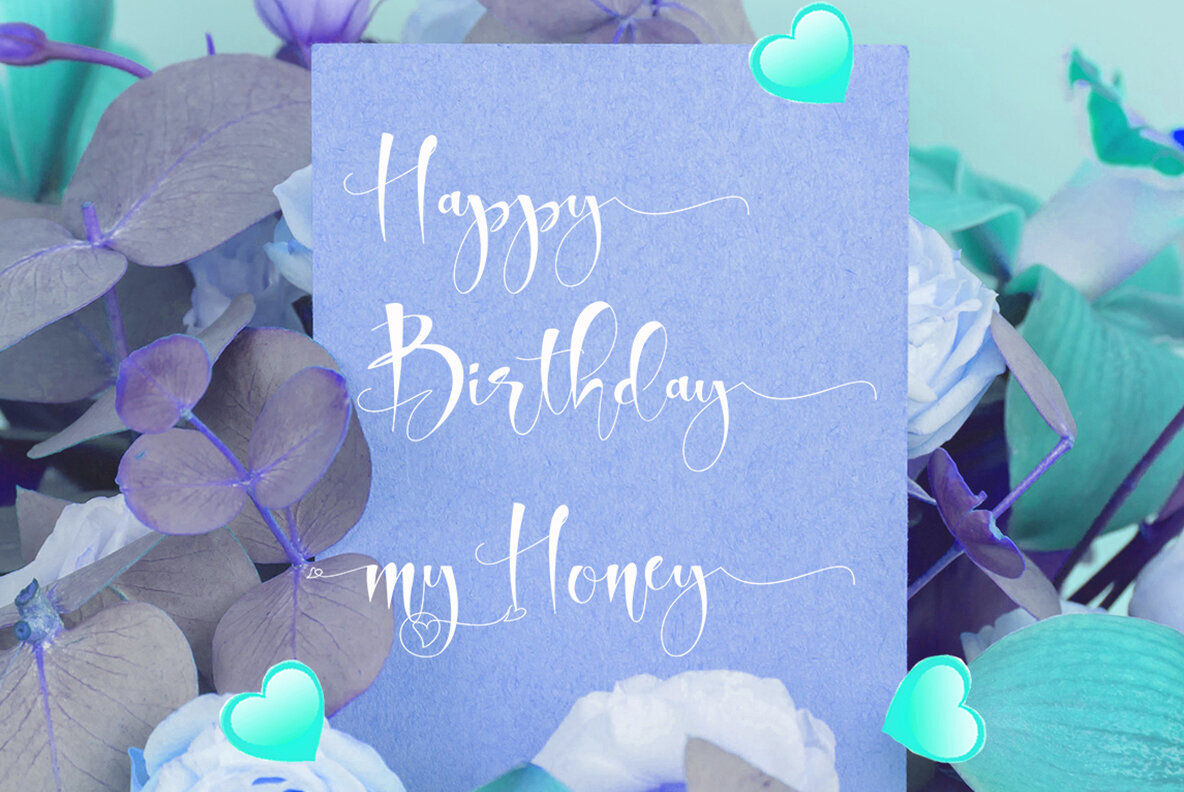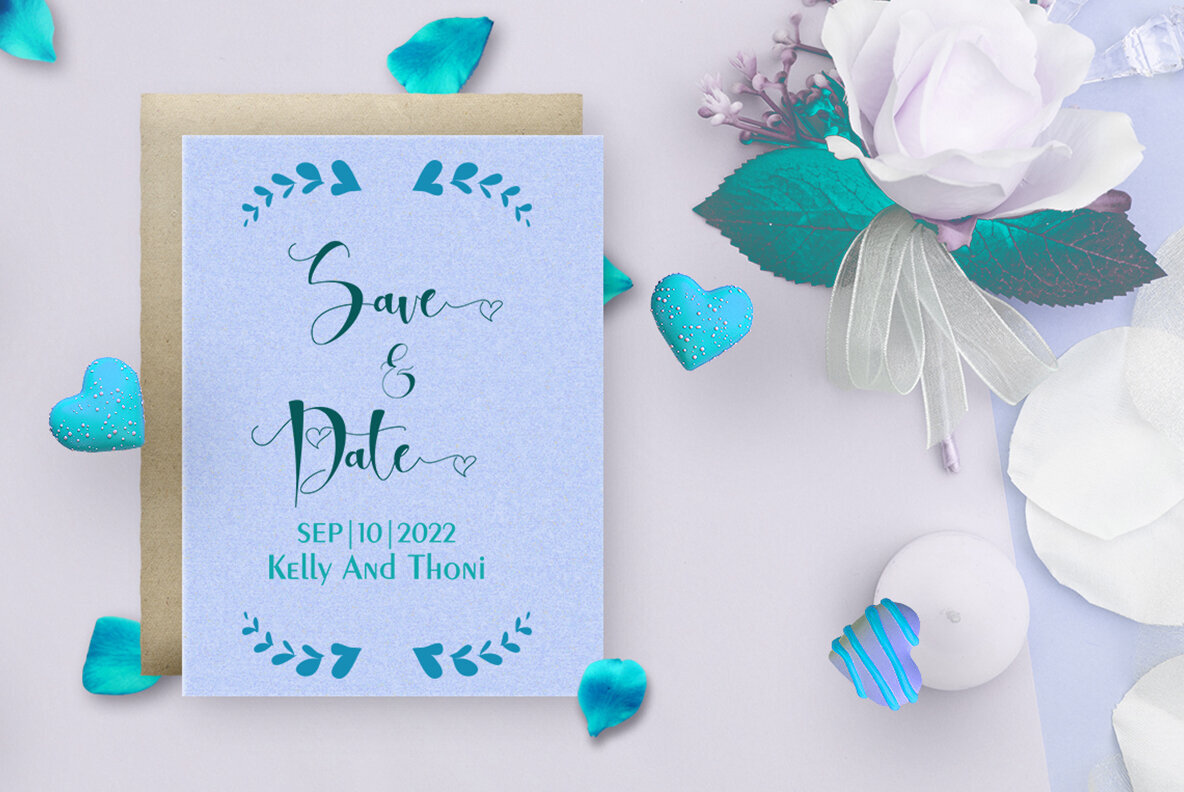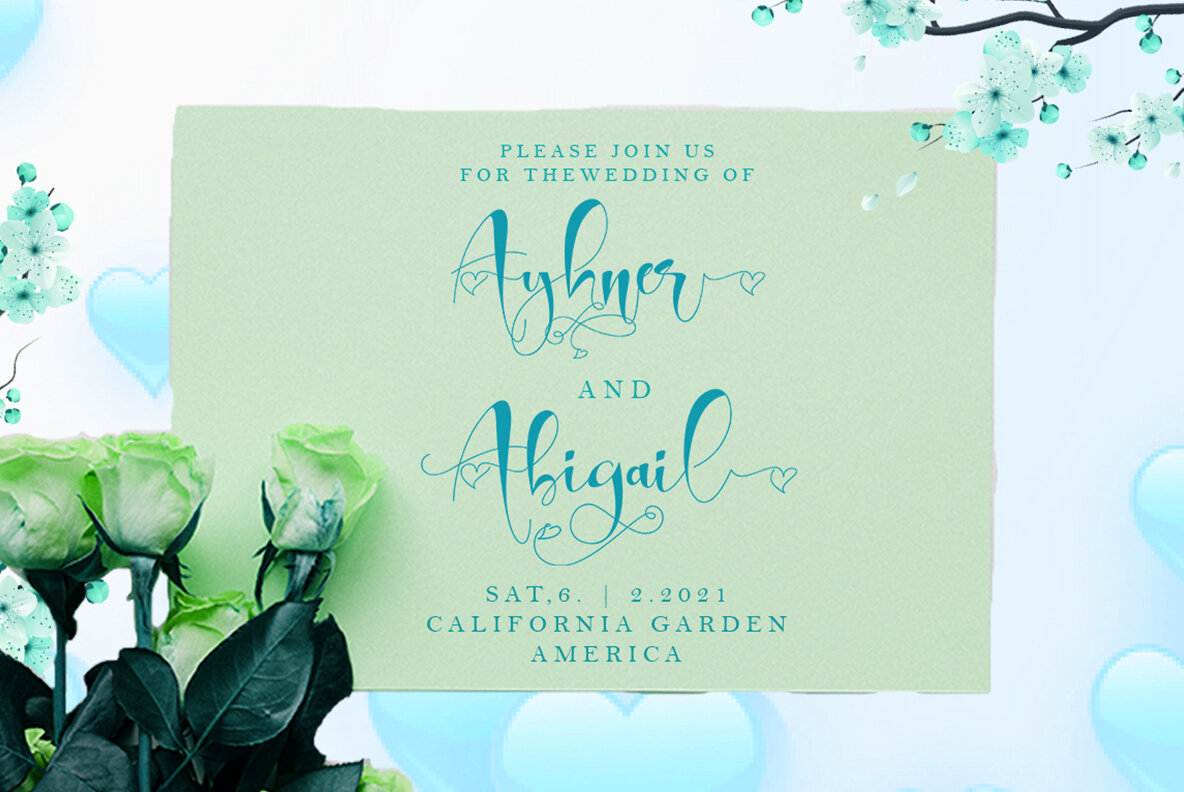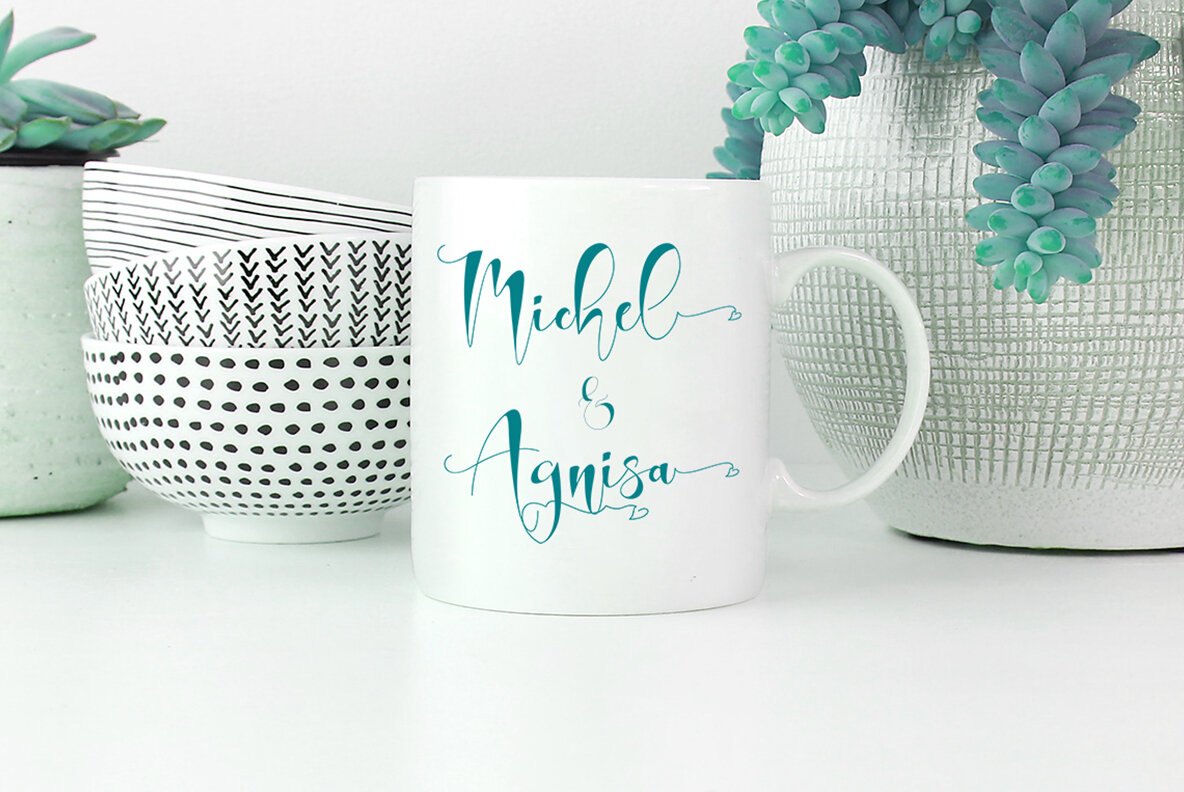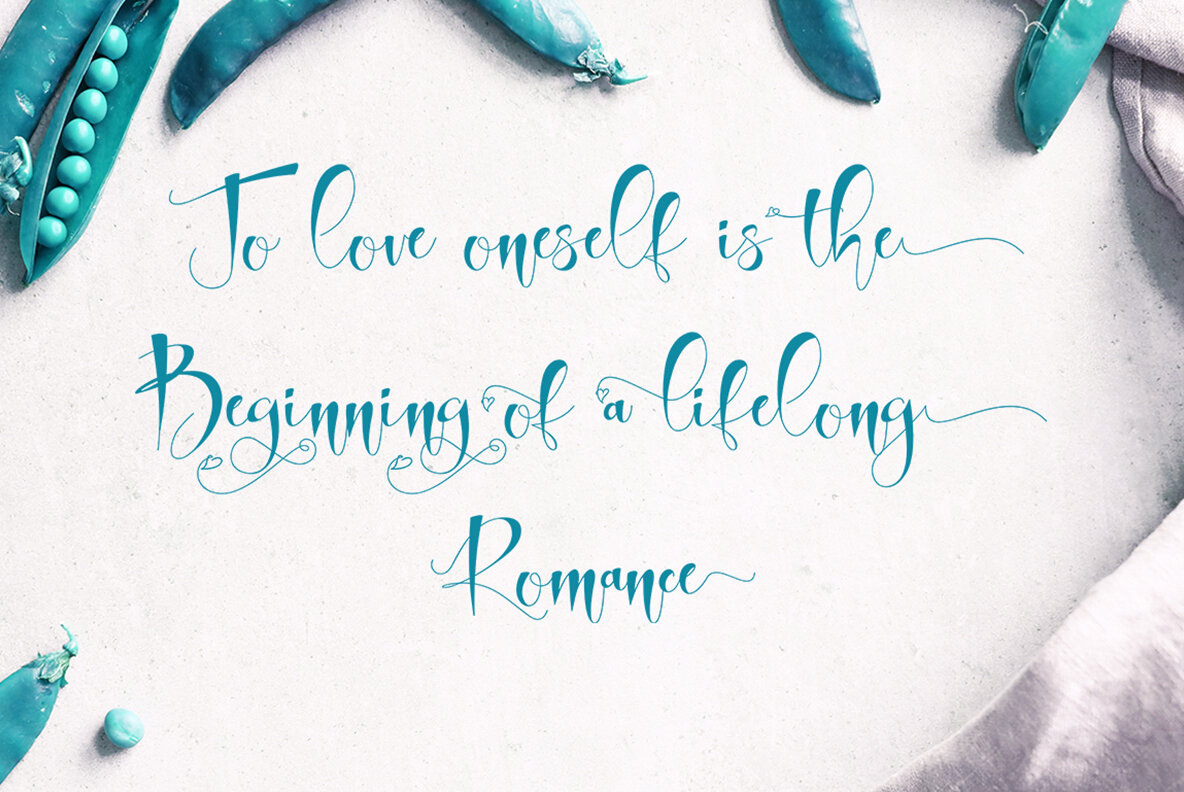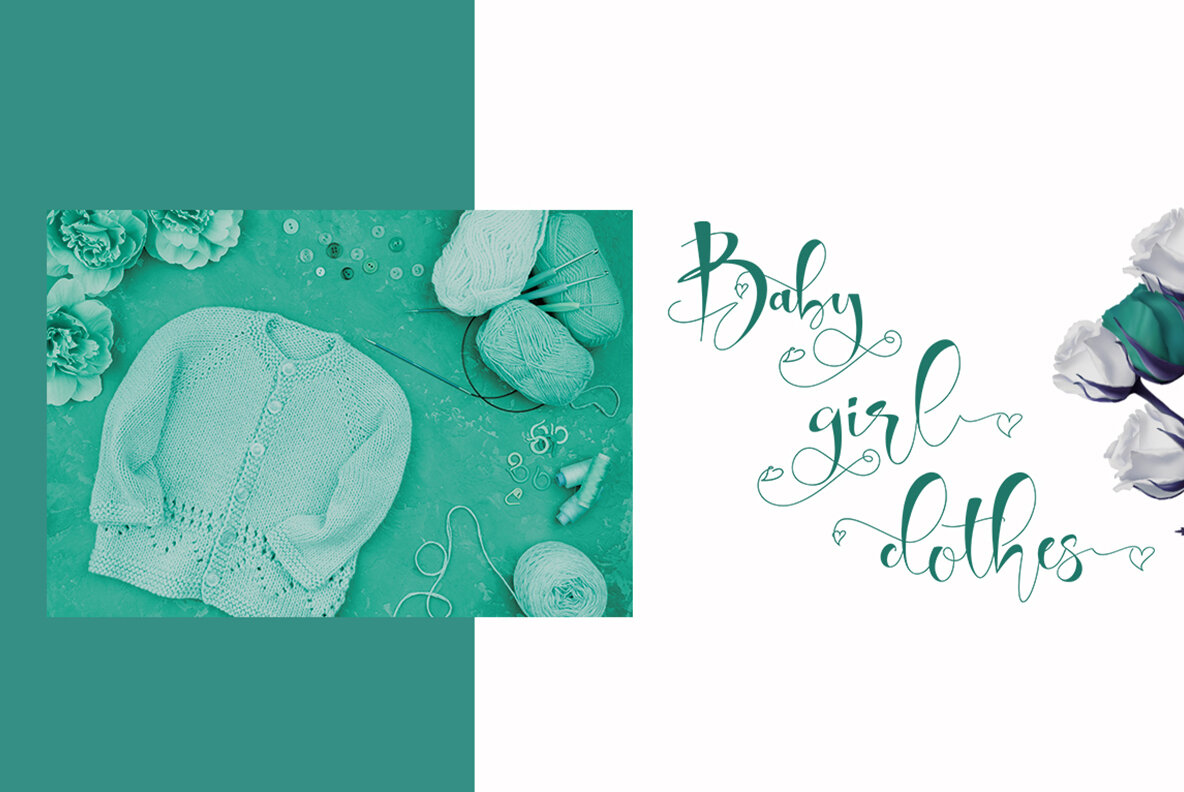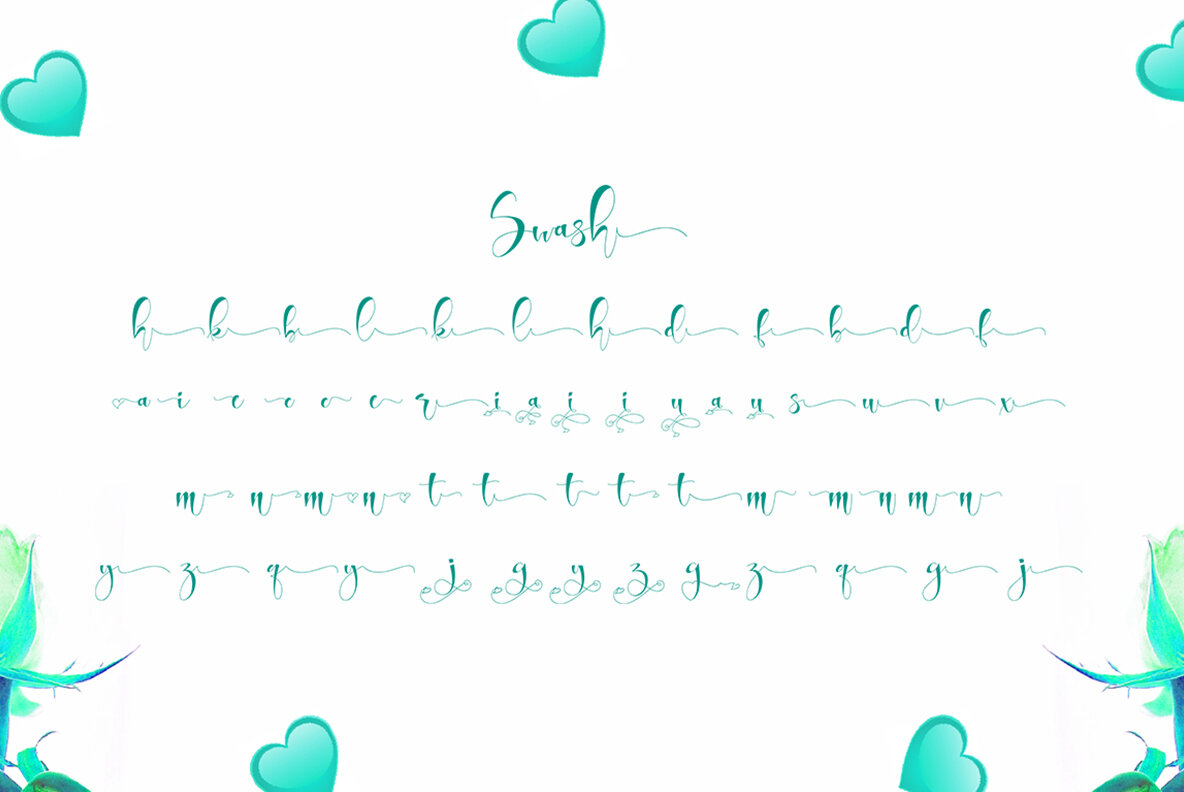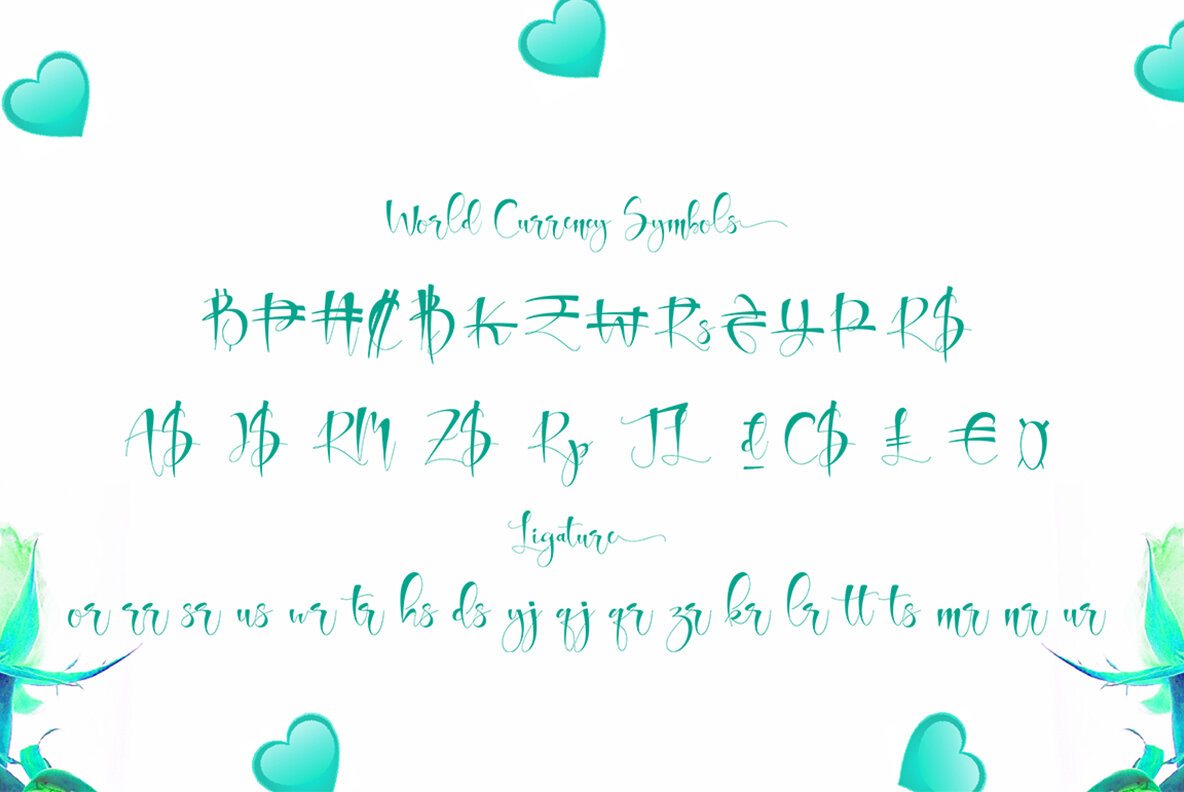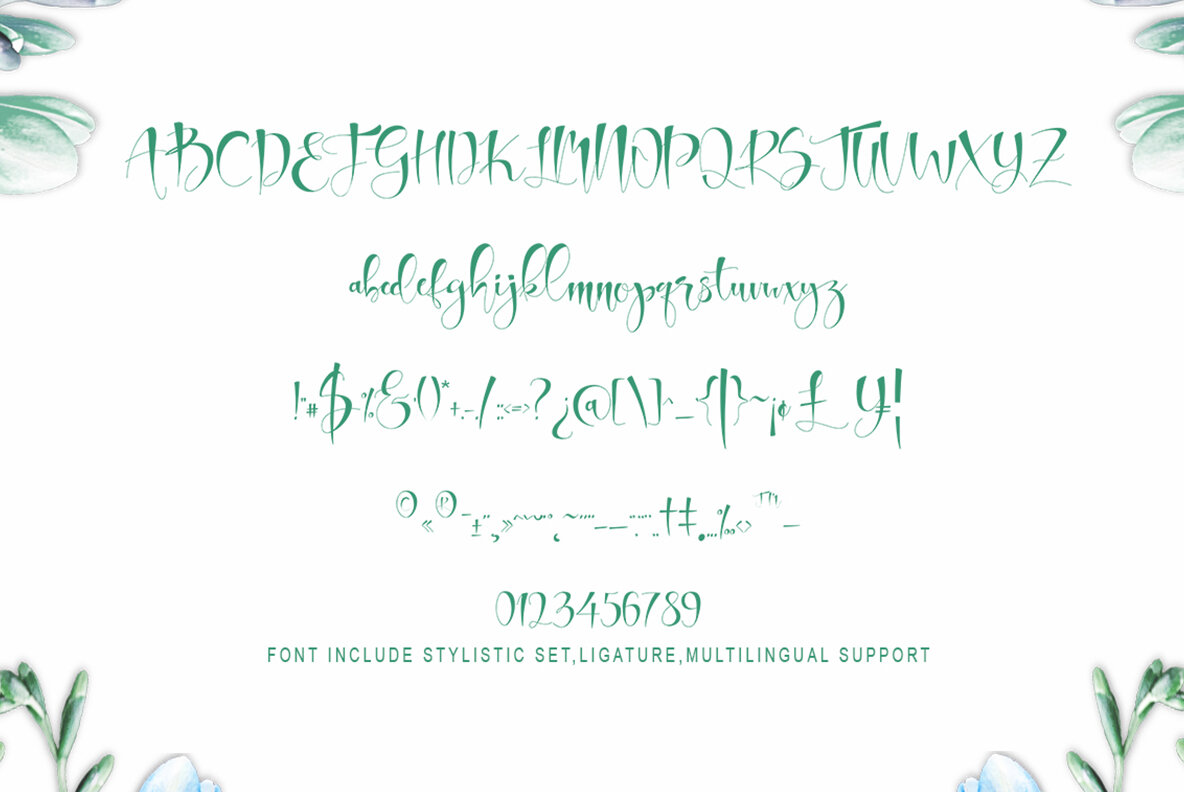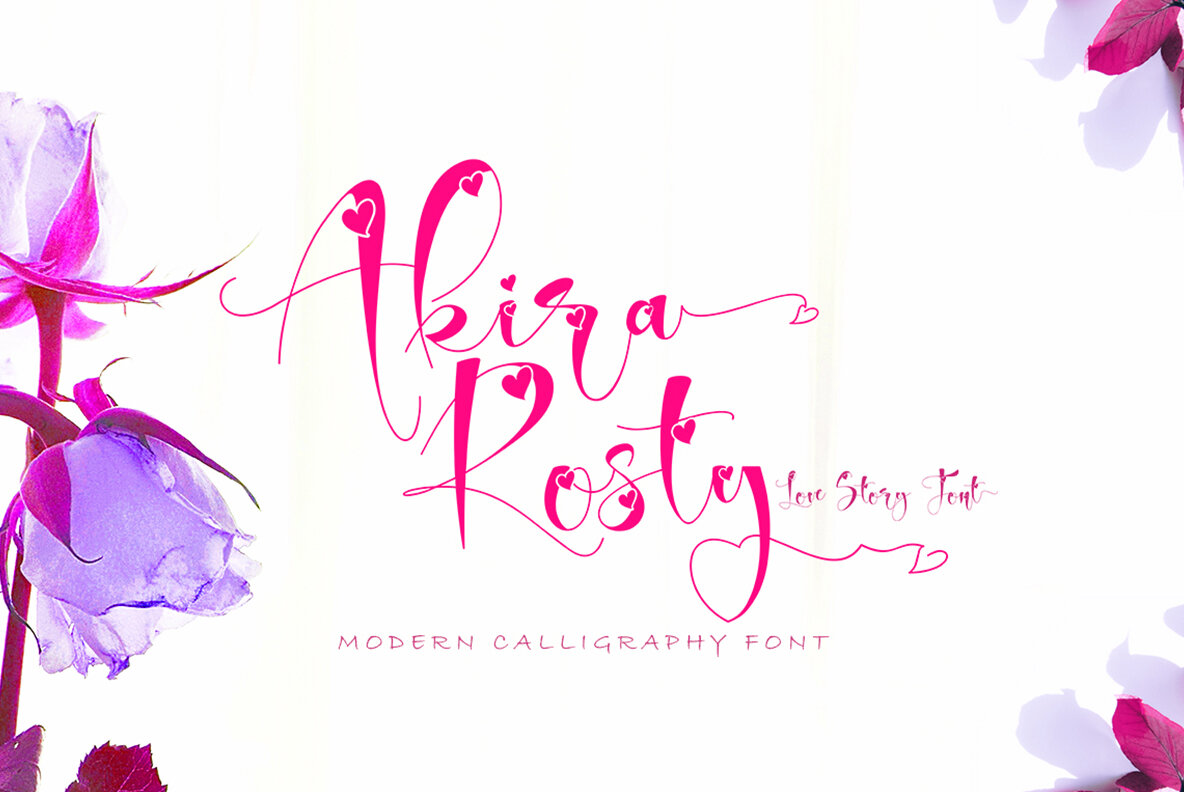
Akira Rosty Font
Akira Rosty is a distinctive handwriting font that combines modern aesthetics with a natural style, ensuring visual appeal. This versatile calligraphy font includes a modern Love style that can be seamlessly integrated with the Normal style, making it a perfect choice for any creative project. Designed to elevate your creativity, Akira Rosty is ideal for branding, web and editorial design, prints, crafts, and quotes. It's an excellent option for logos, wedding invitations, romantic cards, labels, packaging, and name spells. Akira Rosty is coded with PUA Unicode, offering full access to all additional characters without needing special software. Mac users can utilize Font Book, while Windows users can use Character Map to view and copy additional characters for use in your preferred text editor or application.Akira Rosty: Unique Handwriting Meets Modern Calligraphy